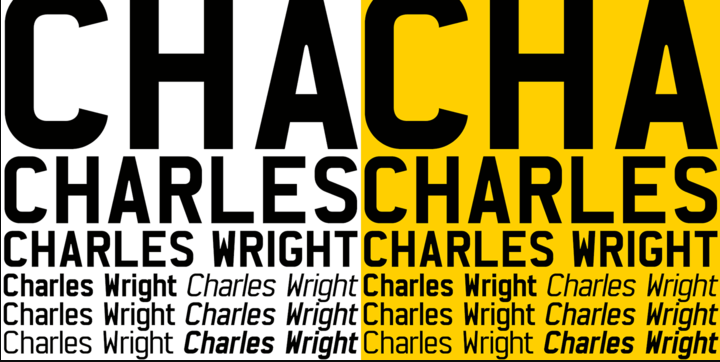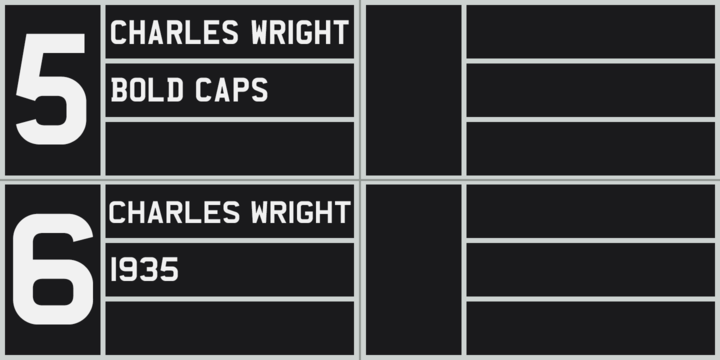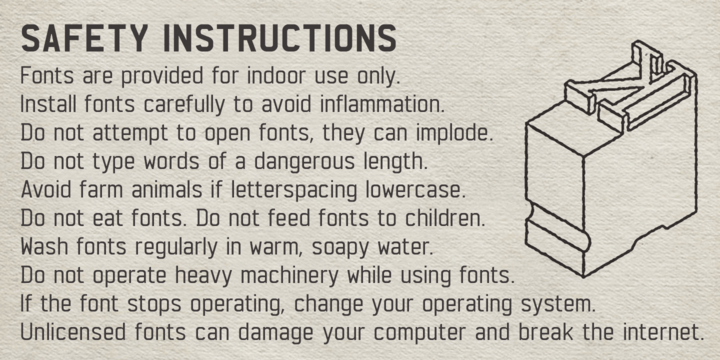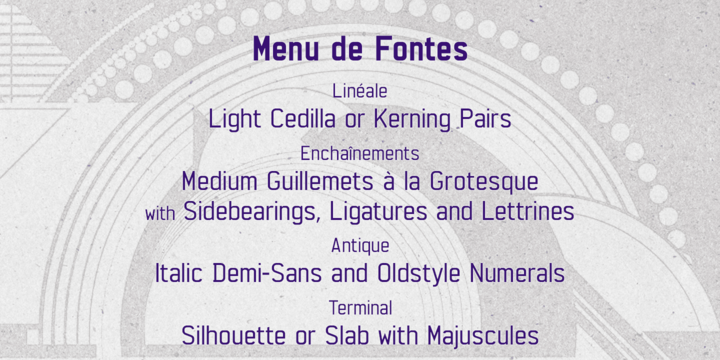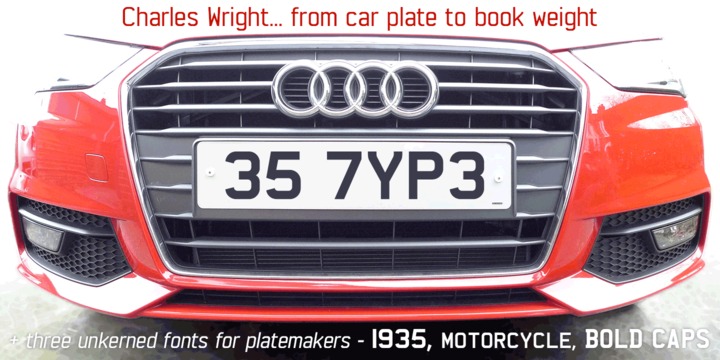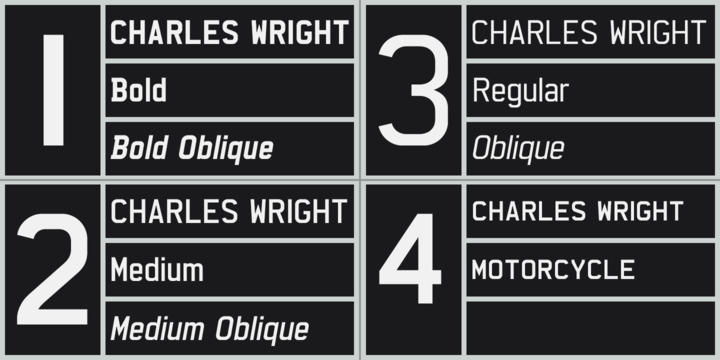
Charles Wright Font Family
K-Type Charles Wright is a full typeface in the style of lettering used for British vehicle license plates. The family includes the standard Bold weight which is based on the condensed bold ‘2001’ style with an uppercase which conforms to UK registration plate specifications for character heights of 79mm and widths of 50mm.